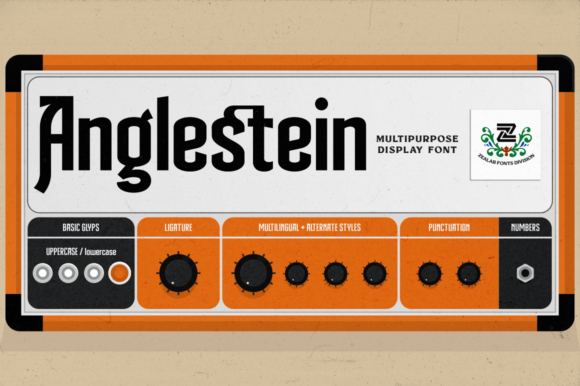
The Anglestein Font: A Design Game-Changer
I still remember the day I stumbled upon the Anglestein font while working on a branding project for a trendy boutique hotel. I had spent hours scouring the internet for the perfect display font, but nothing seemed quite right. That was until I laid eyes on Anglestein – its unique blend of elegance and playfulness instantly captured my attention. I knew right then and there that I had found the perfect fit for my project.
- ✨ Unique and eye-catching design: Anglestein is an incredibly unique display font that stands out from the crowd. Its masterful design makes it a true favorite among designers and crafters alike.
- ✅ High versatility: Whether you’re working on a branding project, a craft project, or just a fun DIY endeavor, Anglestein has the potential to bring each of your creative ideas to the highest level!
- 💡 Excellent for headlines and titles: Anglestein’s bold and elegant design makes it perfect for headlines, titles, and other display text.
Of course, no font is perfect, and Anglestein is no exception. Here are a few small quirks to keep in mind:
- 🤔 May not be suitable for body text: Due to its bold and ornate design, Anglestein may not be the best choice for body text or longer blocks of text.
- ⚠️ Limited use of OpenType features: While Anglestein does offer some OpenType features, it may not have as many as some other fonts on the market.
- Take advantage of Anglestein’s OpenType features, such as glyphs and stylistic alternates, to add more depth and interest to your design.
- Use Anglestein for headings, titles, and other display text to add visual interest to your document.
The Story Behind Anglestein
Anglestein was designed with the intention of creating a unique and eye-catching display font that would stand out in a crowded design landscape. The designer, inspired by classic typography and modern trends, crafted Anglestein to be both elegant and playful. The result is a font that is both versatile and attention-grabbing.
| What is Anglestein font best used for? | Anglestein is best used for headlines, titles, and other display text where a unique and eye-catching font is desired. |
| Does Anglestein have OpenType features? | Yes, Anglestein has some OpenType features, including glyphs and stylistic alternates. |